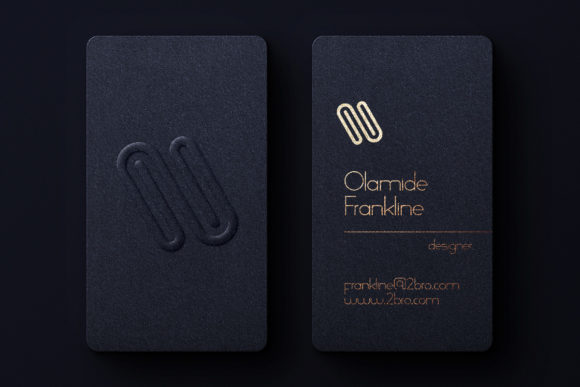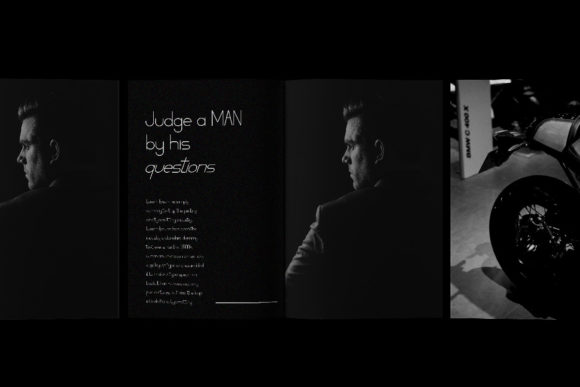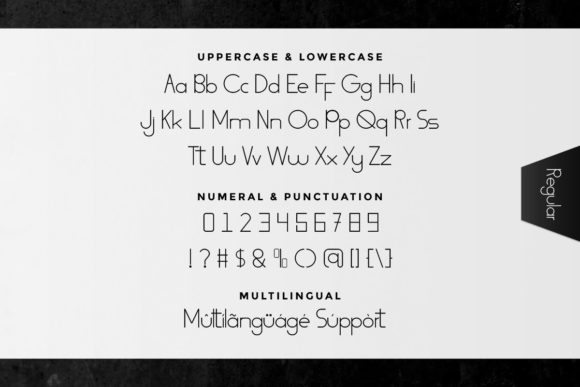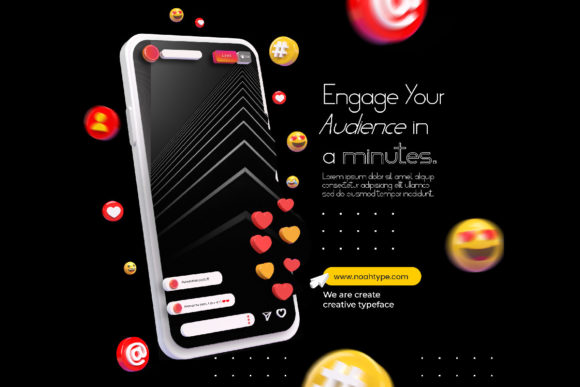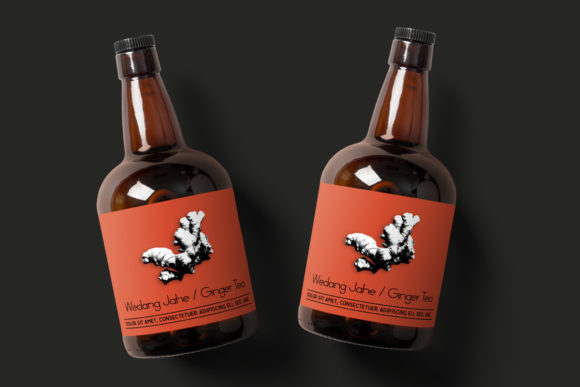
The George Sight Font: A Modern Sans Serif for Creative Minds
As a designer, I’ve had my fair share of frustrating moments when searching for the perfect font for a project. I recall working on a branding project for a tech startup, spending hours scrolling through font libraries, but nothing seemed quite right. That was until I stumbled upon the George Sight font. In this article, I’ll share my experience with this modern sans serif font family, its unique features, and how to make the most of it in your designs.
A Personal Encounter with George Sight
When I first laid eyes on George Sight, I was immediately drawn to its clean and modern aesthetic. The font’s casual vibe seemed perfect for a tech startup’s branding project I was working on. I was impressed by its unique style that exudes an authentic and exclusive touch. The font’s inspiration from many startups and technology companies is evident in its design, making it an excellent choice for projects that require a modern and fresh feel.
An Honest Review of George Sight
What I Love About George Sight ✨
- ✅ Modern and fresh design: George Sight’s unique style is perfect for projects that require a contemporary feel.
- ✅ Highly versatile: The font family includes multiple weights, making it suitable for a wide range of applications, from digital media to print.
- ✅ Ease of use: George Sight is easy to read, even at smaller font sizes, making it perfect for body text.
- ✅ OpenType features: The font supports OpenType features, including glyphs and stylistic alternates, which can add an extra layer of creativity to your designs.
- ⚠️ Limited language support: George Sight might not support all languages, so it’s essential to check the font’s specifications before use.
- ⚠️ Not ideal for formal projects: Due to its casual nature, George Sight might not be the best choice for formal or traditional projects.
The Backstory of George Sight
George Sight was designed with the goal of creating a modern sans serif font family that embodies the spirit of startups and technology companies. The designer aimed to create a font that is both clean and authentic, with a unique style that sets it apart from other fonts in the same category. While the real story behind George Sight’s creation may be unknown, its design inspiration is clear: to bring a fresh and exclusive touch to creative projects.
Q: What is George Sight font?
A: George Sight is a modern sans serif font family designed for creative projects, inspired by startups and technology companies.
Q: What are the key features of George Sight?
A: George Sight features a unique modern design, multiple weights, OpenType features, and a casual vibe, making it perfect for projects that require a fresh and authentic feel.
Q: Is George Sight suitable for body text?
A: Yes, George Sight is easy to read, even at smaller font sizes, making it suitable for body text.